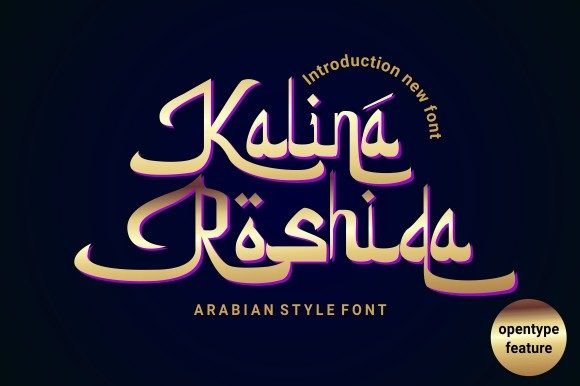
Introducing the Kalina Rashida Font - a dazzling script font that will add an instant touch of sophistication and elegance to your projects. This stunning font is inspired by the intricate beauty of Arabian calligraphy, and it shows in every stroke and curve.
With fluid lines and delicate curves, Kalina Rashida is a work of art that is sure to captivate anyone who lays eyes on it. This font family has been meticulously crafted to bring out the best in your designs, making it perfect for creating stunning logos, invitations, and branding materials.
If you're looking for the best fonts for church signs, then look no further than Kalina Rashida. Its elegant script style and attention to detail make it the perfect choice for creating beautiful and inspiring signs that will resonate with your congregation.
Created by the talented designer victoriant99, this font family is the epitome of luxury and refinement. It radiates sophistication and glamour, making it the perfect choice for any project that requires a touch of class.